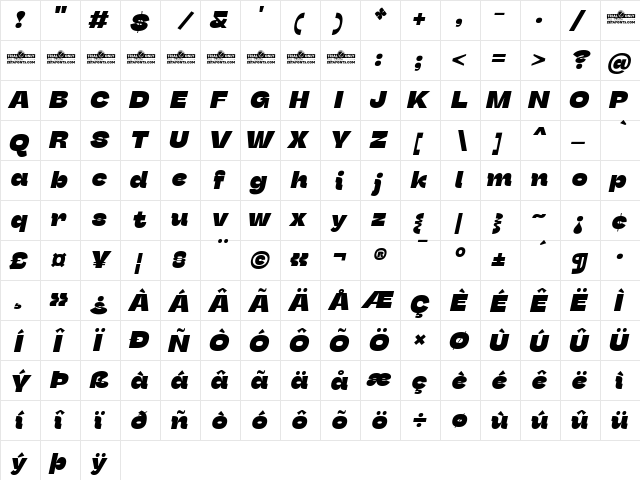
Stinger Fit Trial Heavy Italic
| Foundry | Studio Kmzero & Zetafonts |
| Designer | Cosimo Lorenzo Pancini |
Design Context for Stinger Fit Trial Typeface
Stinger Fit Trial takes a measured approach to typography — its balanced proportions and neutral character make it a reliable workhorse for both digital and print work. The dynamic lean of this cut emphasises speed and emphasis in any layout.